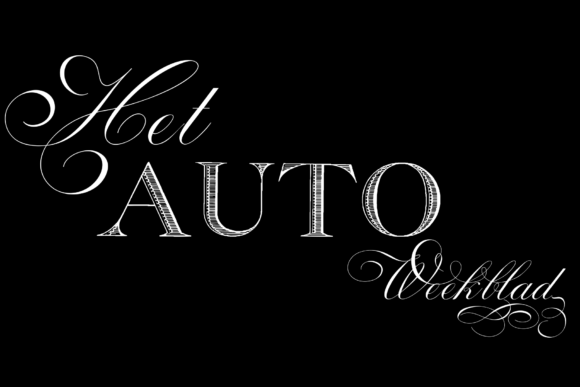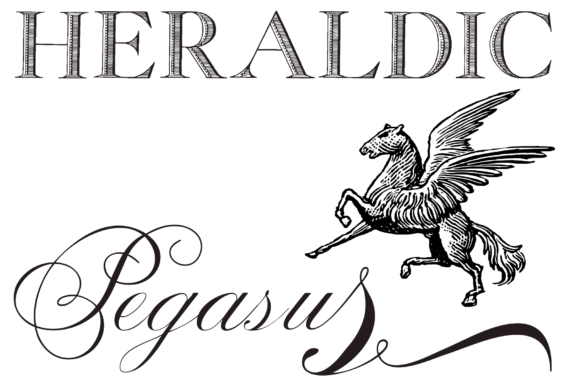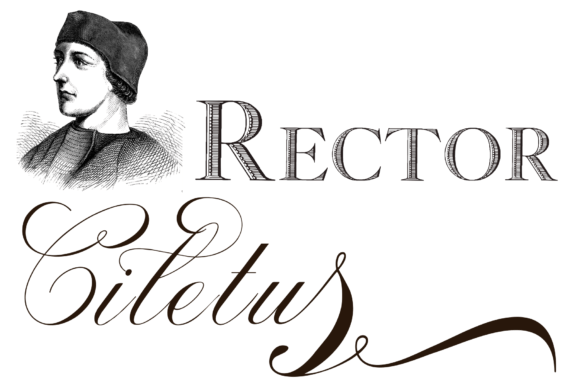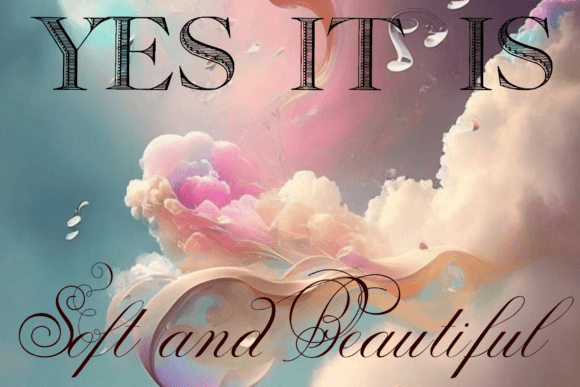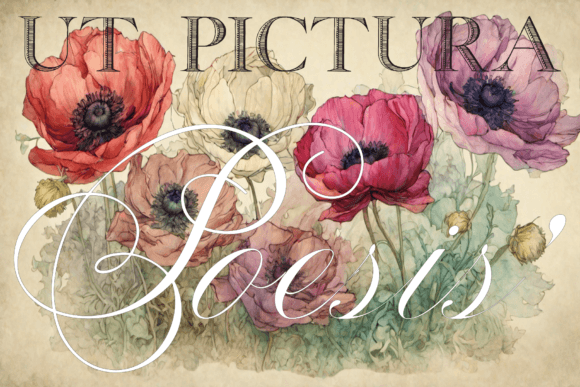
Introduction to Penabico Cyra Duo Font Font
Fonts play a crucial role in design, and the Penabico Cyra Duo Font font is a typeface that brings both character and versatility to any project. Whether you’re working on a branding project, a website, or a print design, the Penabico Cyra Duo Font font offers a unique style that can elevate your work.
If youβre looking for a stylish and versatile font duo for your design projects, this is a great choice: Penabico Script and Cyra might be just what you need.
This font set features a classic script and an engraved Roman classic typeface, which work together to create an elegant and sophisticated visual So if youβre looking for display look that combines classic style with modern functionality, Penabico Script and Cyra Duo is definitely the great choice PENABICO PLUS CYRA is a font duo that seamlessly blends an amazing English commercial script and a classic Roman chiseled font to create a modern and elegant look.
The Penabico Cyra Duo Font font is more than just a typeface β it’s a design tool that helps you communicate your message with style and clarity. Its unique character set and versatile design make it suitable for a wide range of applications, from elegant invitations to bold headlines.
With its carefully crafted letterforms and balanced proportions, the Penabico Cyra Duo Font font ensures readability and visual appeal across all mediums.
The Penabico Cyra Duo Font font stands out with its unique design, exceptional readability, and versatility across various design applications.